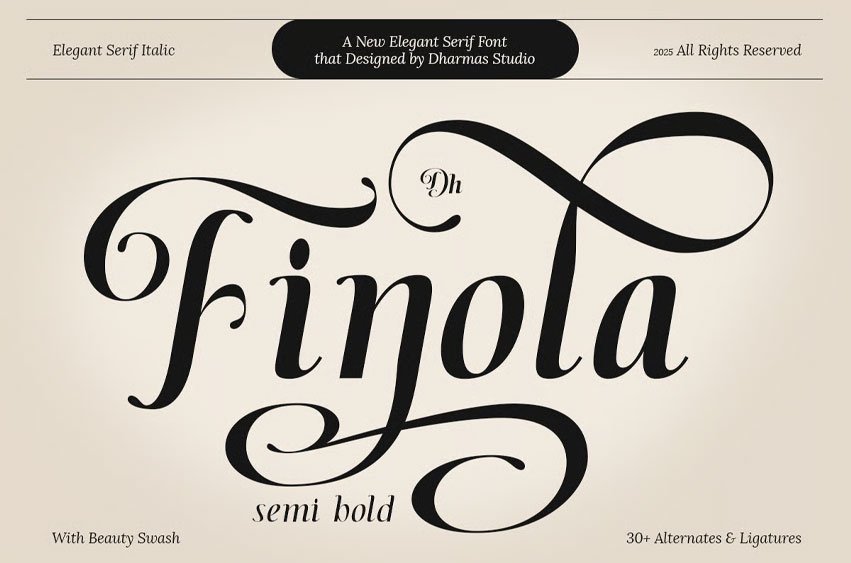
Finola Semi Bold Font adds confident elegance to your design with a stronger contrast and graceful form. This weight enhances the classic beauty of serif strokes while preserving the fluid, signature-like curves that make Finola stand out. It’s ideal for wedding stationery and sophisticated packaging.
- 1 Weight: Semi Bold
- 30+ Swash Alternates and Ligatures
- Letters, numbers, symbols, punctuation, special alternates
Its semi-bold appearance offers a striking presence while remaining refined and legible — perfect for designs that seek to make a lasting impression.
Finola Semi Bold Font Preview